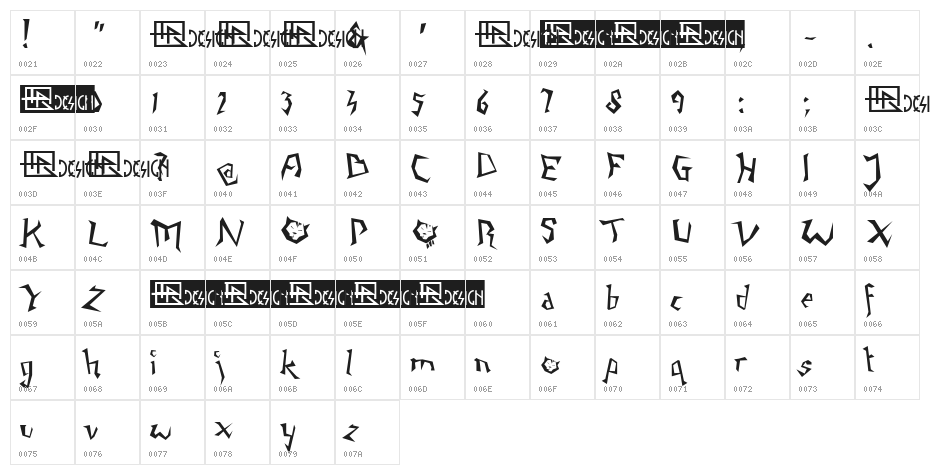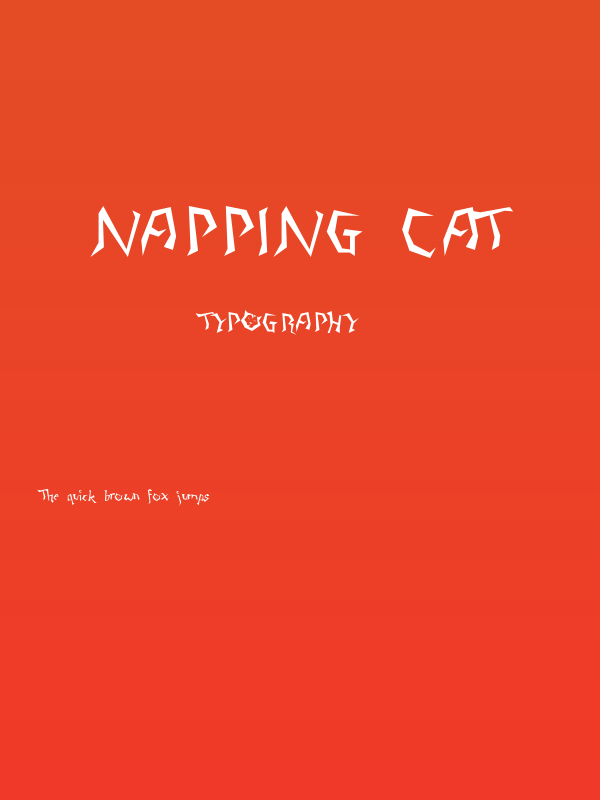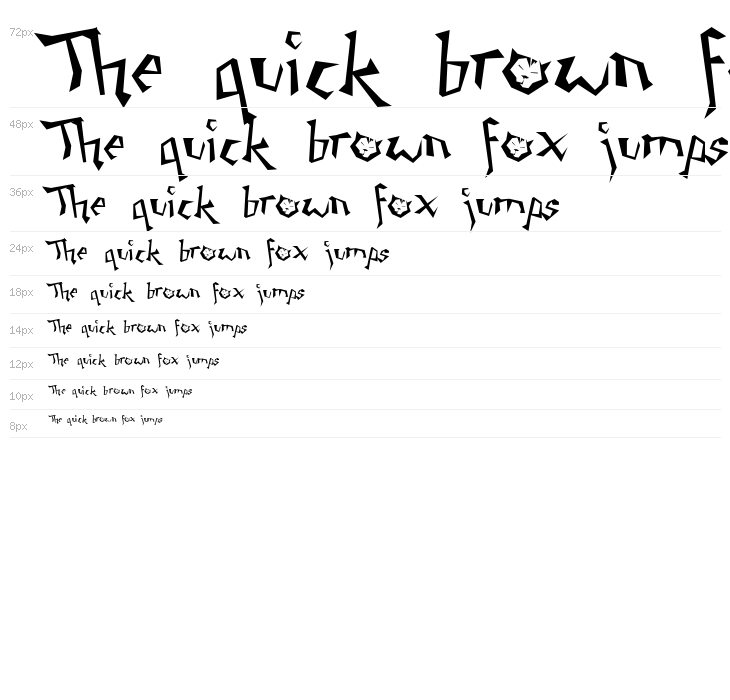
Napping Cat Font
Napping Cat Description
This font features a highly stylized, angular design with sharp edges and a bold presence. Each character is crafted with a unique geometric flair, creating a sense of movement and energy. The uppercase and lowercase letters maintain a consistent style, while the numerals and special characters follow the same angular theme. The font's distinctive look is reminiscent of abstract art, making it stand out in any design project. The characters are tightly spaced, enhancing the compact and dynamic feel of the font. Its high contrast in stroke thickness adds to its striking appearance.
| Width | Condensed |
| Overall Style | Modern, Decorative |
| Use Case | Logos, Headlines, Posters |
| Proposed Projects | Ideal for edgy branding, album covers, posters, and modern art projects. |